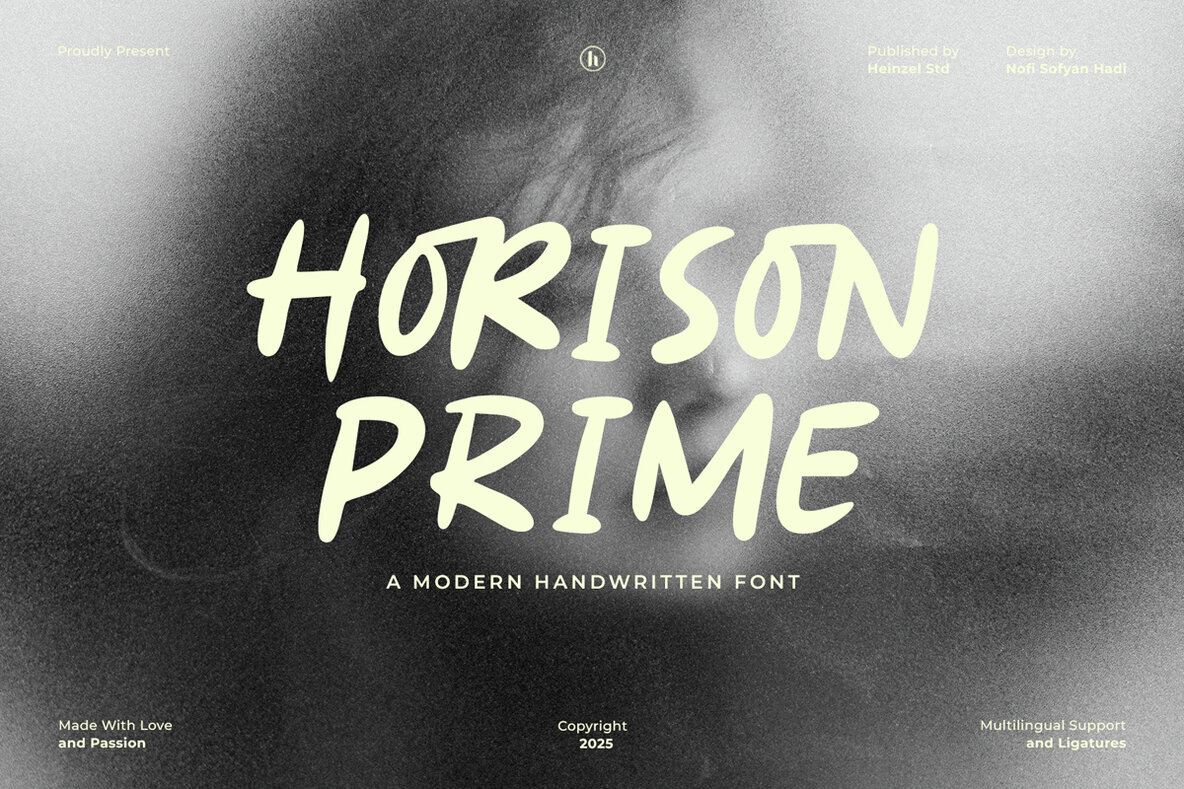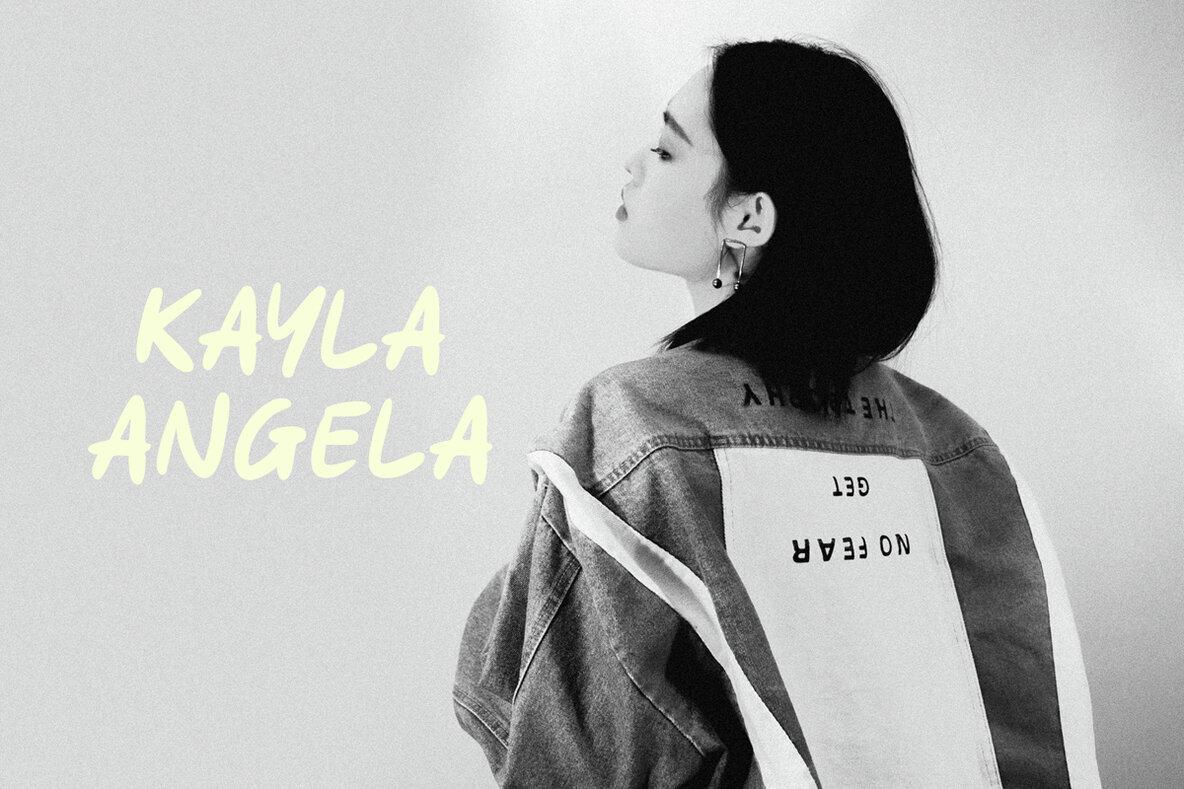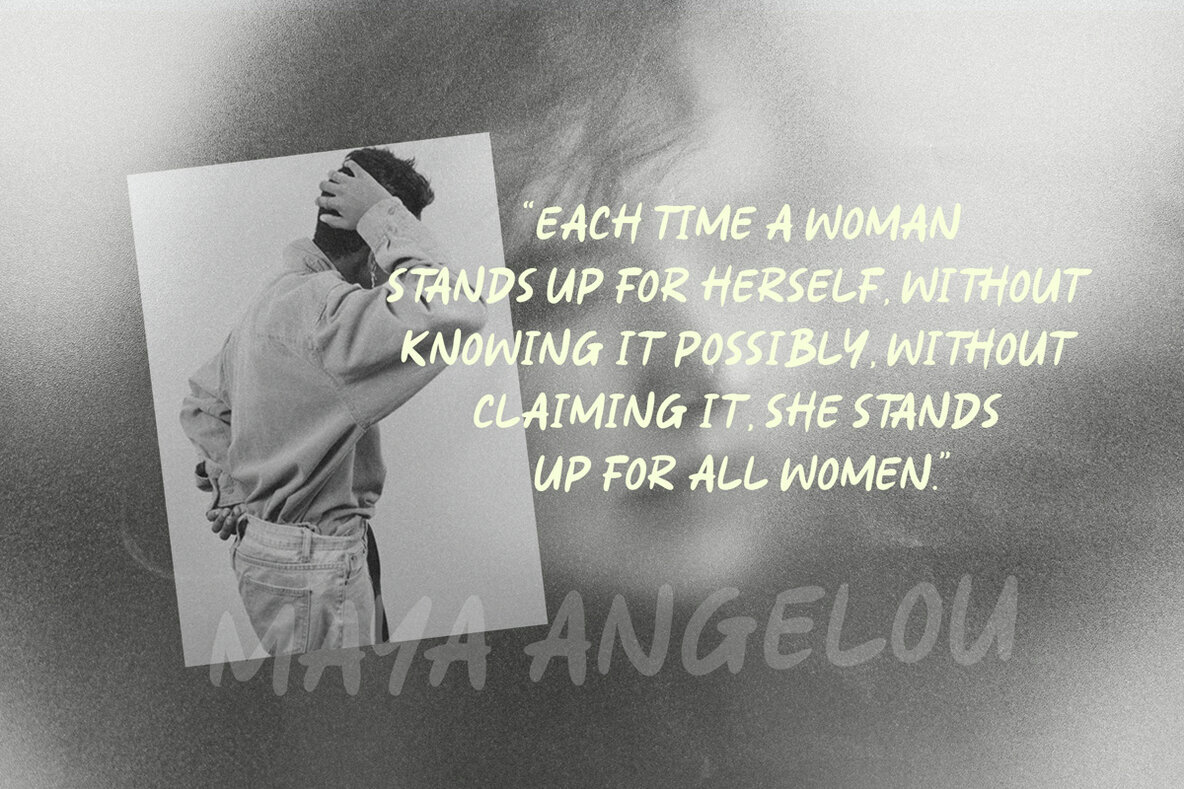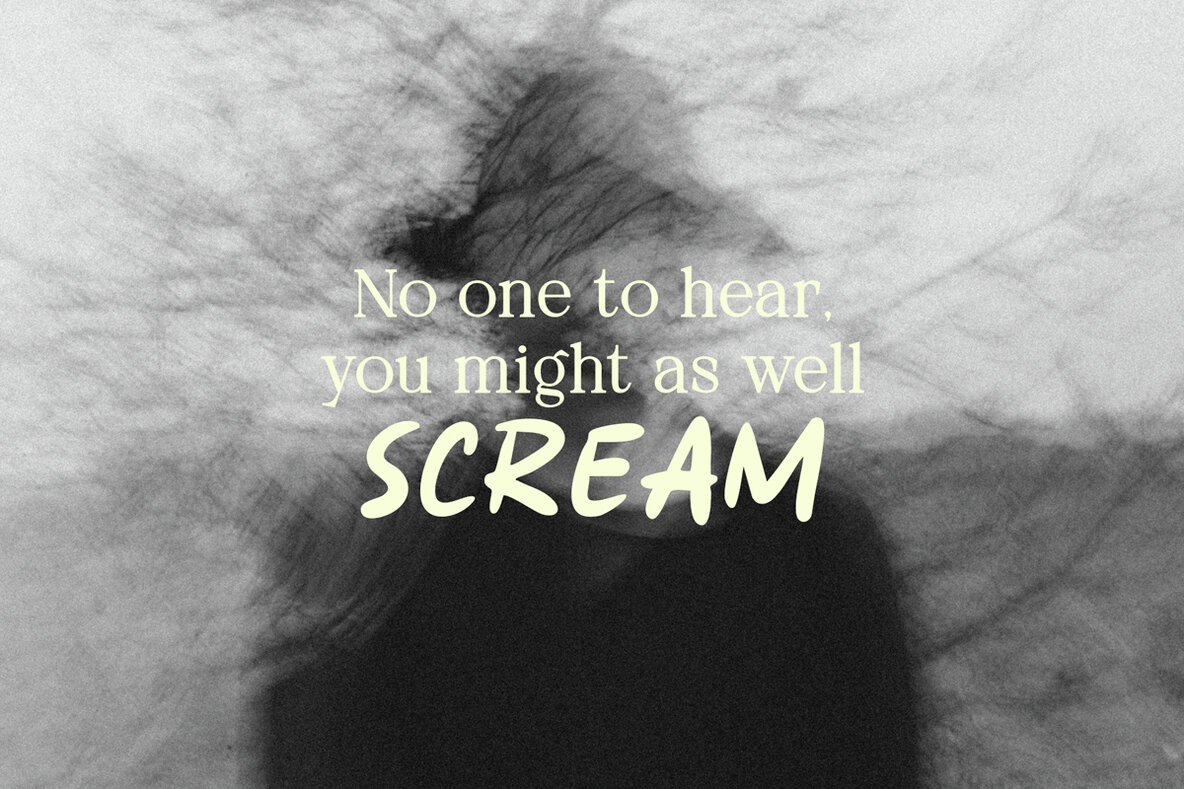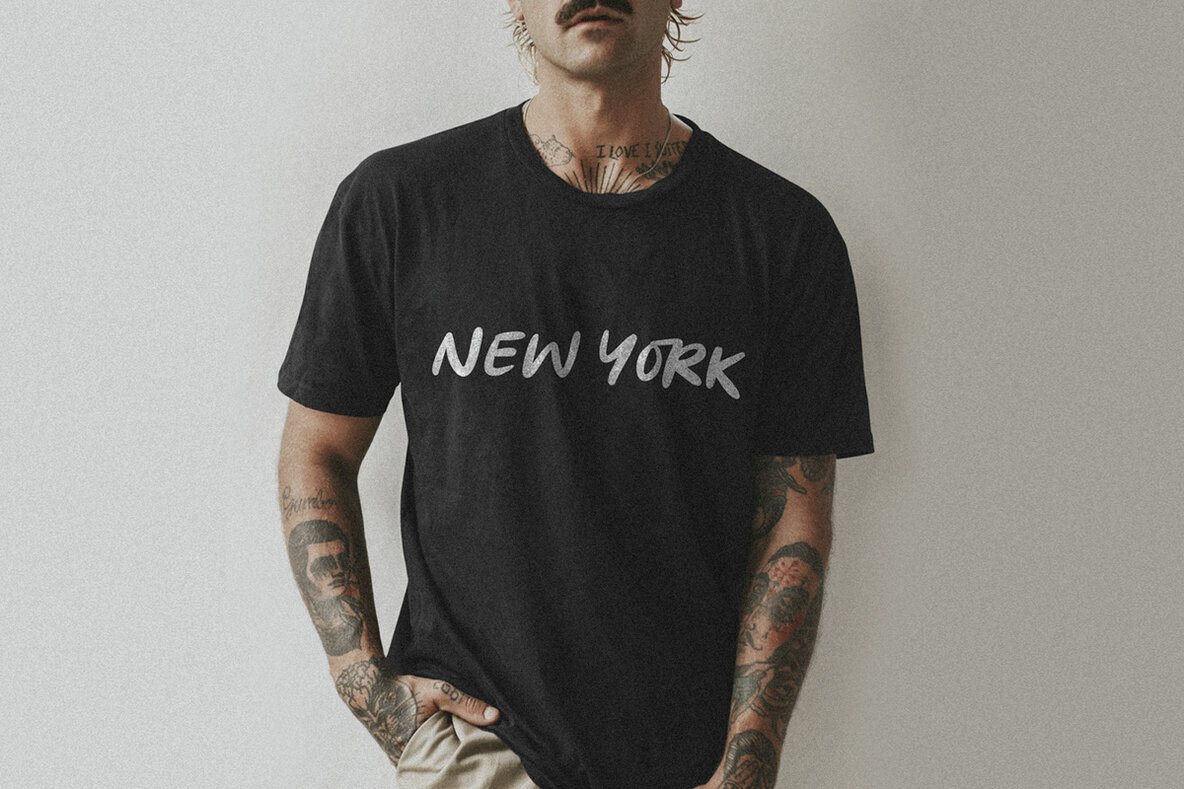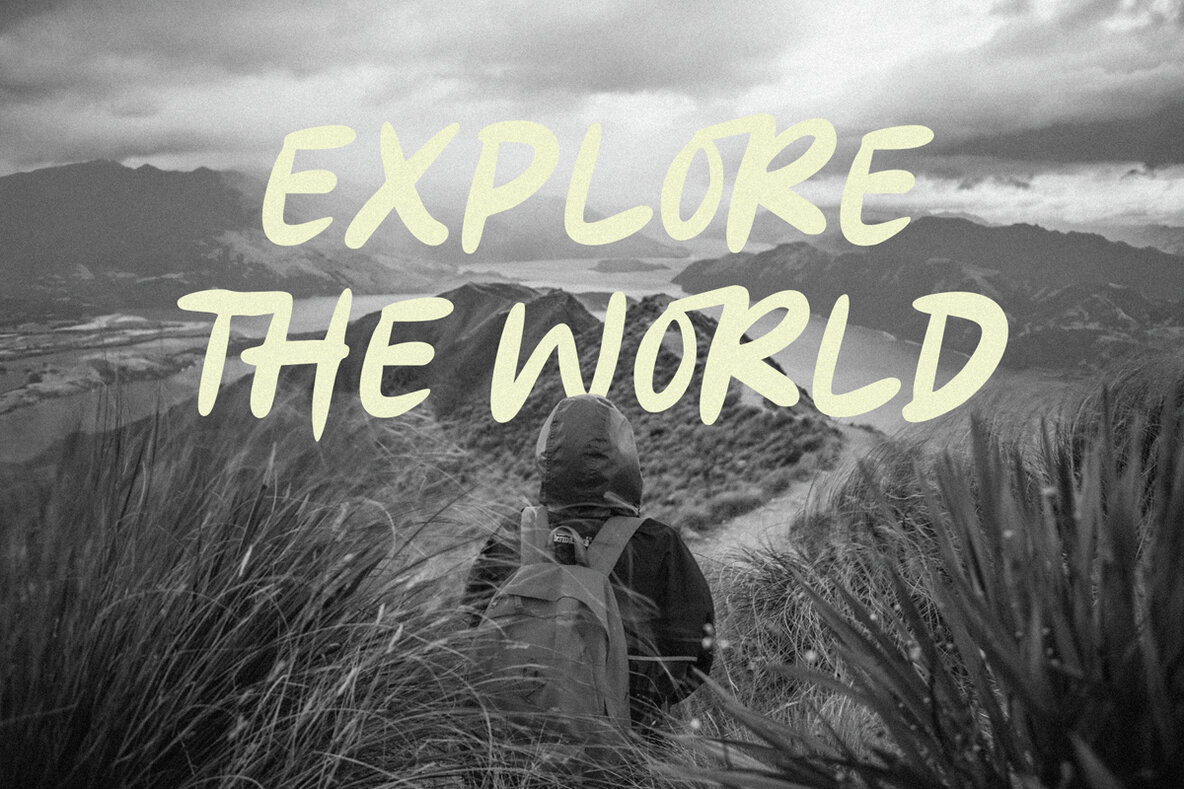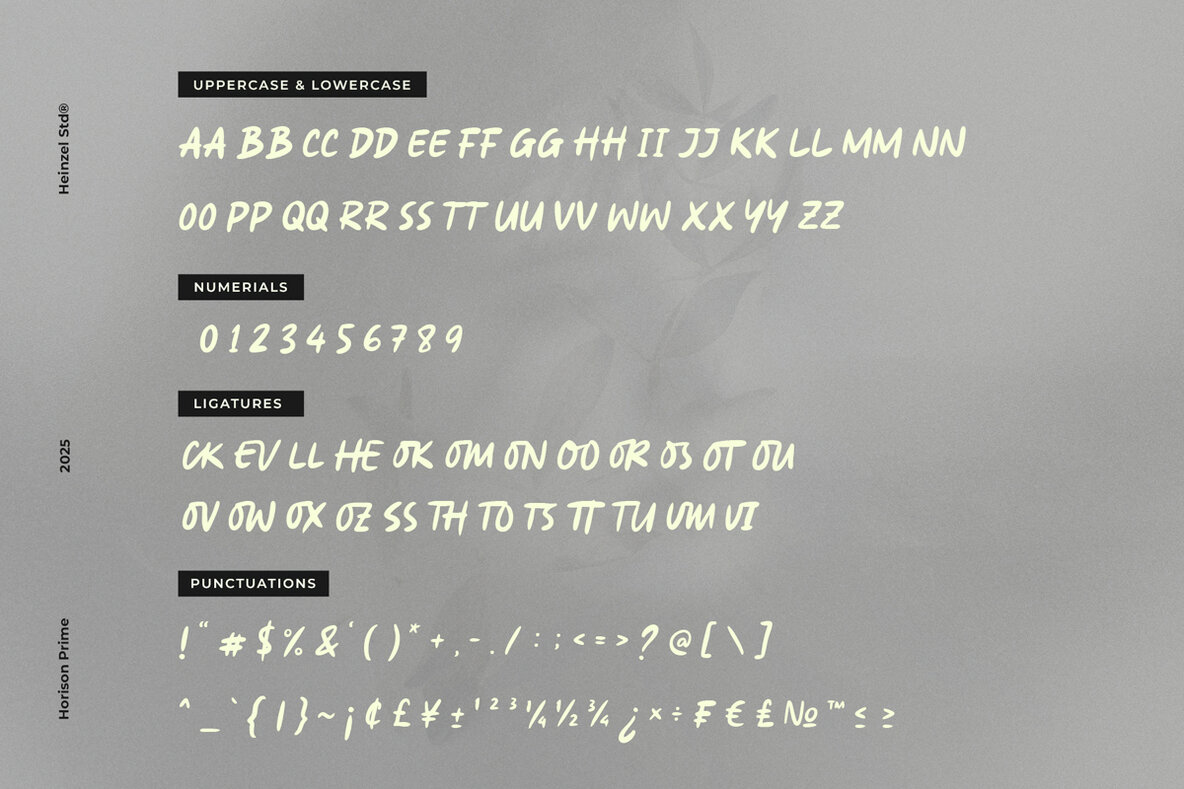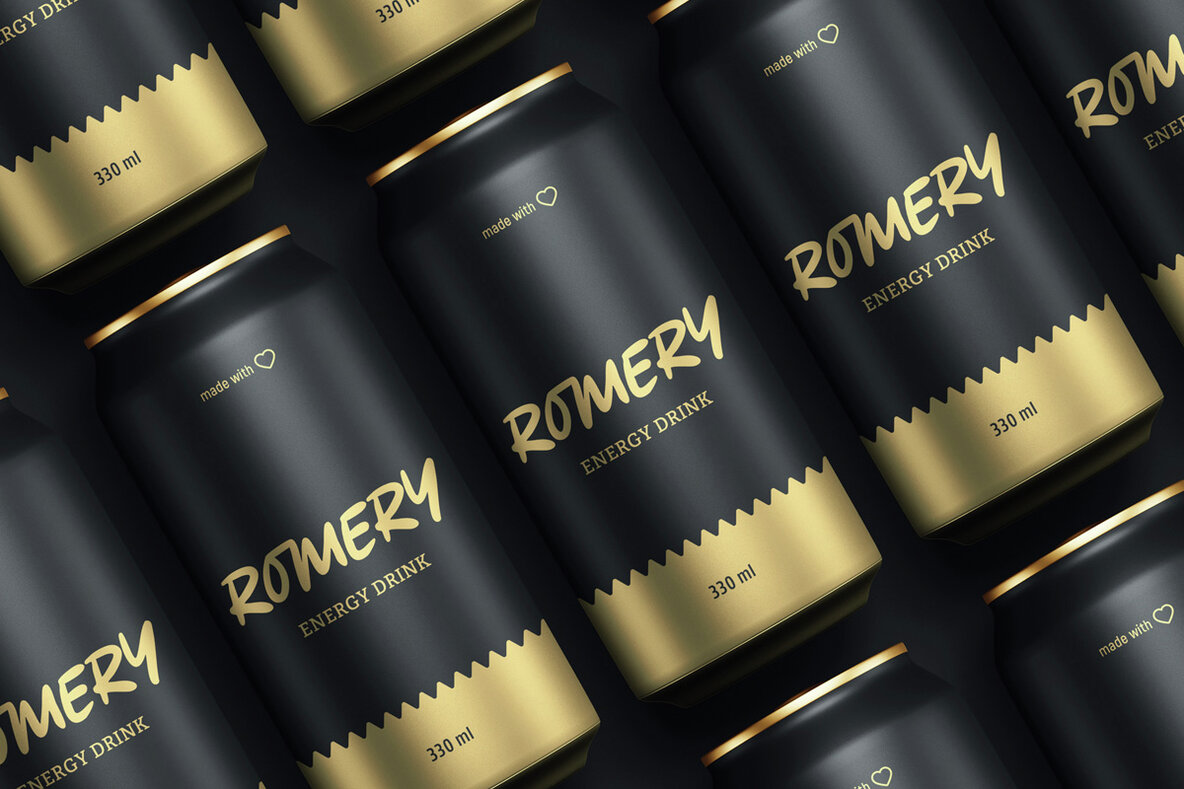
Horison Prime Font
Horison Prime Regular
Horison Prime is a striking all-caps handwritten font that infuses your creative projects with a personal, artisanal touch. Featuring smooth, organic strokes paired with a modern casual flair, this font is superbly suited for branding, logos, posters, packaging, social media, and editorial designs. Its vibrant letterforms infuse your work with energy and authenticity, while its multilingual support and ligatures ensure seamless usability across different languages and layouts. Perfect for designers, creatives, and brands looking for a distinctive handwritten aesthetic, Horison Prime offers a versatile typeface that commands attention in both print and digital media. Enjoy the natural charm and expressive character of Horison Prime in your design endeavors.Horison Prime: Bold Handwritten Elegance